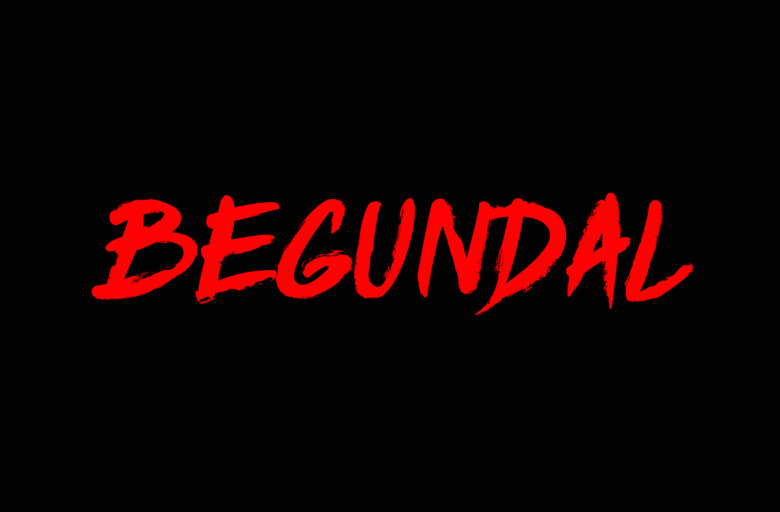
Begundal Brush Font
Begundal Font
Begundal is an energetic charcoal hand-written font. Begundal Script Font is a fun brush script font, fresh & modern style. It is perfect for water mark, logo, printed quotes, badge, insignia, packaging, headline, poster, t-shirt/apparel, greeting card, and wedding invitation, & etc. have a great day.
Begundal Brush Font